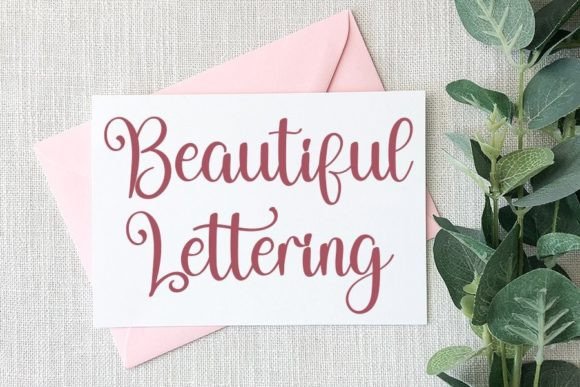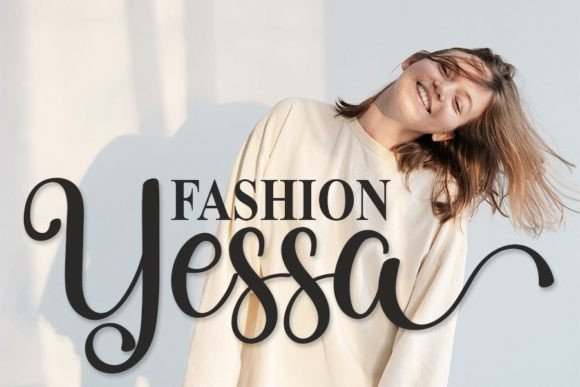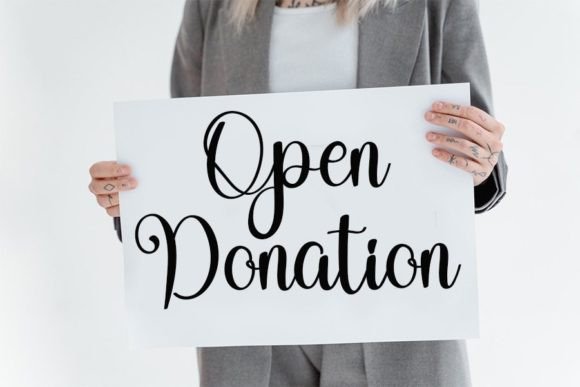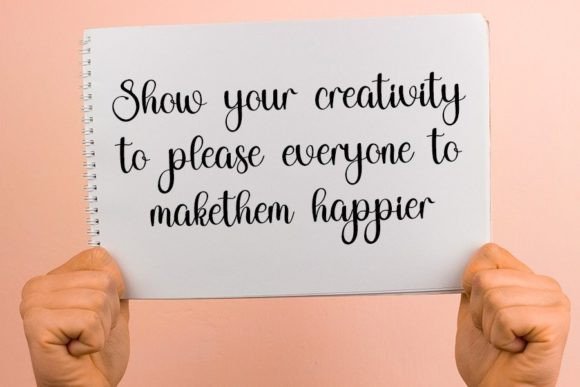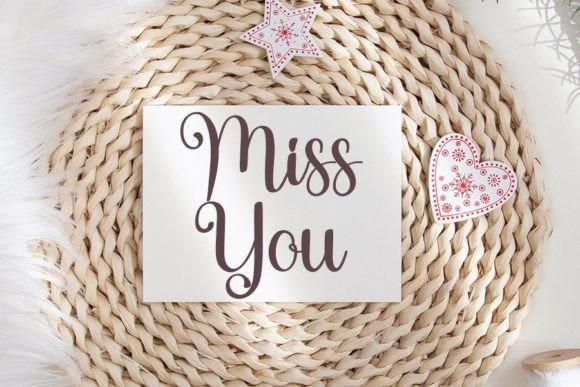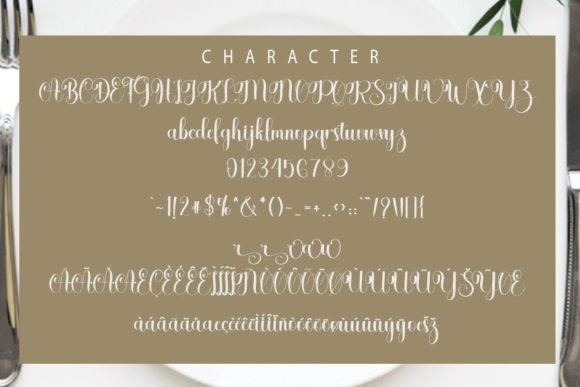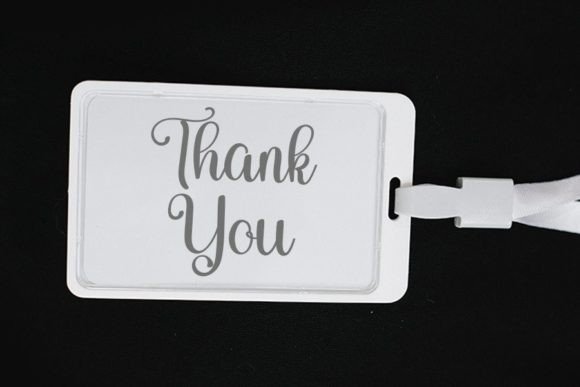
Strungles Font
About Strungles Font
“Strungles” is a beautiful and refined handwritten font that radiates class and modernity. Its stylish design makes it an excellent choice for a wide range of design applications, including logos, branding, invitations, stationery, wedding designs, social media posts, and beyond. The font’s versatility allows it to seamlessly enhance various creative projects.
The classy and modern qualities of “Strungles” can add a touch of sophistication to your designs. Envision using it for a high-end logo where its refined script contributes to a polished and professional image. Picture it on wedding invitations, where its elegance enhances the overall aesthetic of the celebration.
An outstanding feature of “Strungles” is its PUA encoding, providing easy access to a variety of glyphs and ligatures. This feature enhances your creative freedom, allowing you to customize and personalize your designs effortlessly. Whether you’re an experienced designer or someone exploring the world of creativity, “Strungles” invites you to experiment with its beautiful and refined handwritten style.
As you integrate “Strungles” into your design projects, let its class and modernity be the key elements that elevate your work. Whether you’re working on branding materials, invitations, or social media posts, “Strungles” ensures that your designs stand out with a touch of sophistication and elegance, leaving a lasting impression on your audience.